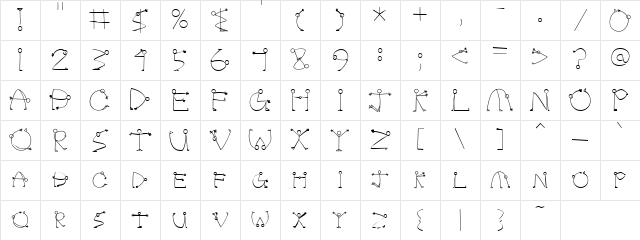
Scrap Tumble Regular
Design Context for Scrap Tumble
Scrap Tumble is a composed and adaptable typeface that performs quietly and consistently across a wide range of design contexts.